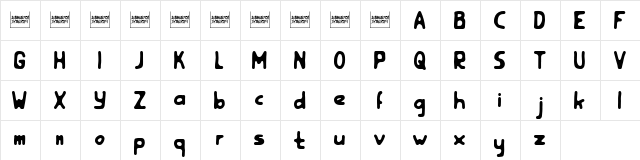
Rootfear (demo) Regular Font Preview
Rootfear (demo) Regular
Design Context for Rootfear (demo) Typeface
Rootfear (demo) offers clean, dependable letterforms without strong stylistic allegiance, making it a practical choice for designers who need flexibility.